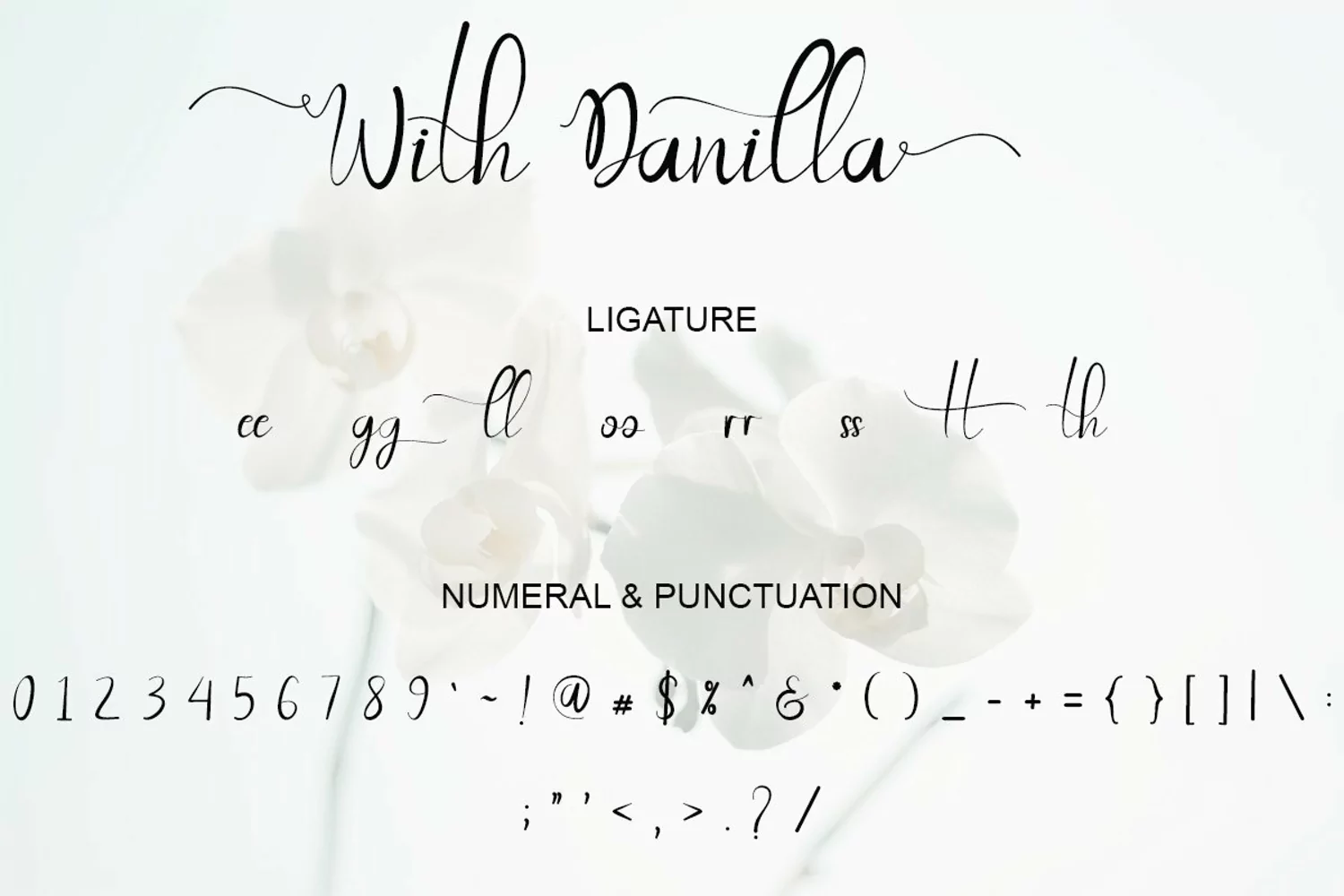
This font is named "With Danilla". With Danilla is a modern handwritten script. This font is very beautiful and elegant to complete and beautify your work. This font can be used for various things for example to make romantic words or quotes.